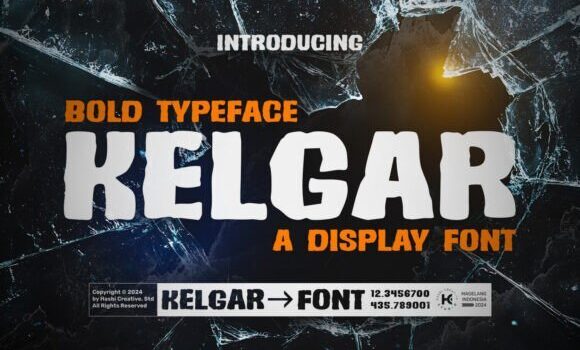
Kelgar Font – Free Download Introduction to Kelgar Font Kelgar Display is a bold, abstract hand-drawn font that adds character and creativity to titles and headlines. 📸 Preview Gallery 6 images 📌 Product Name Kelgar Font 👤 Author Hasbi Creative